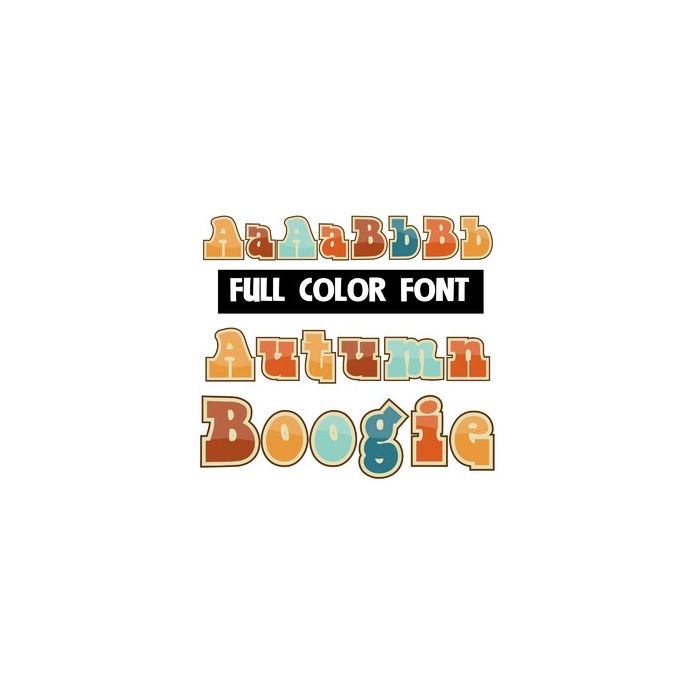
This full-color font features a retro design in an autumn color palette. This font has a secondary upper and lowercase you can access through Silhouette's glyph map.